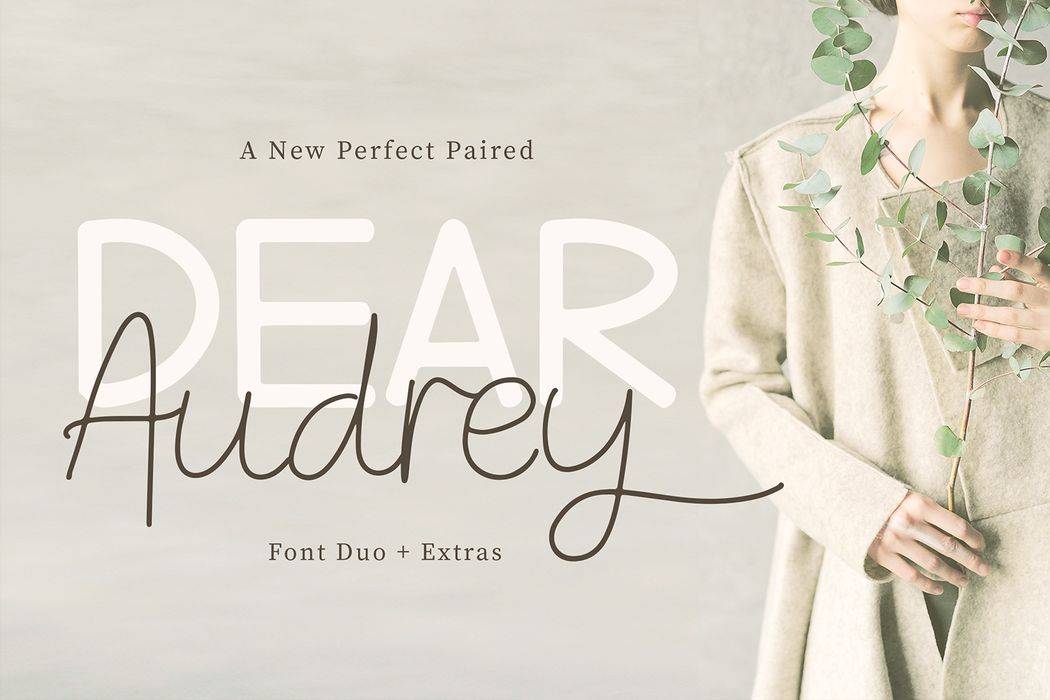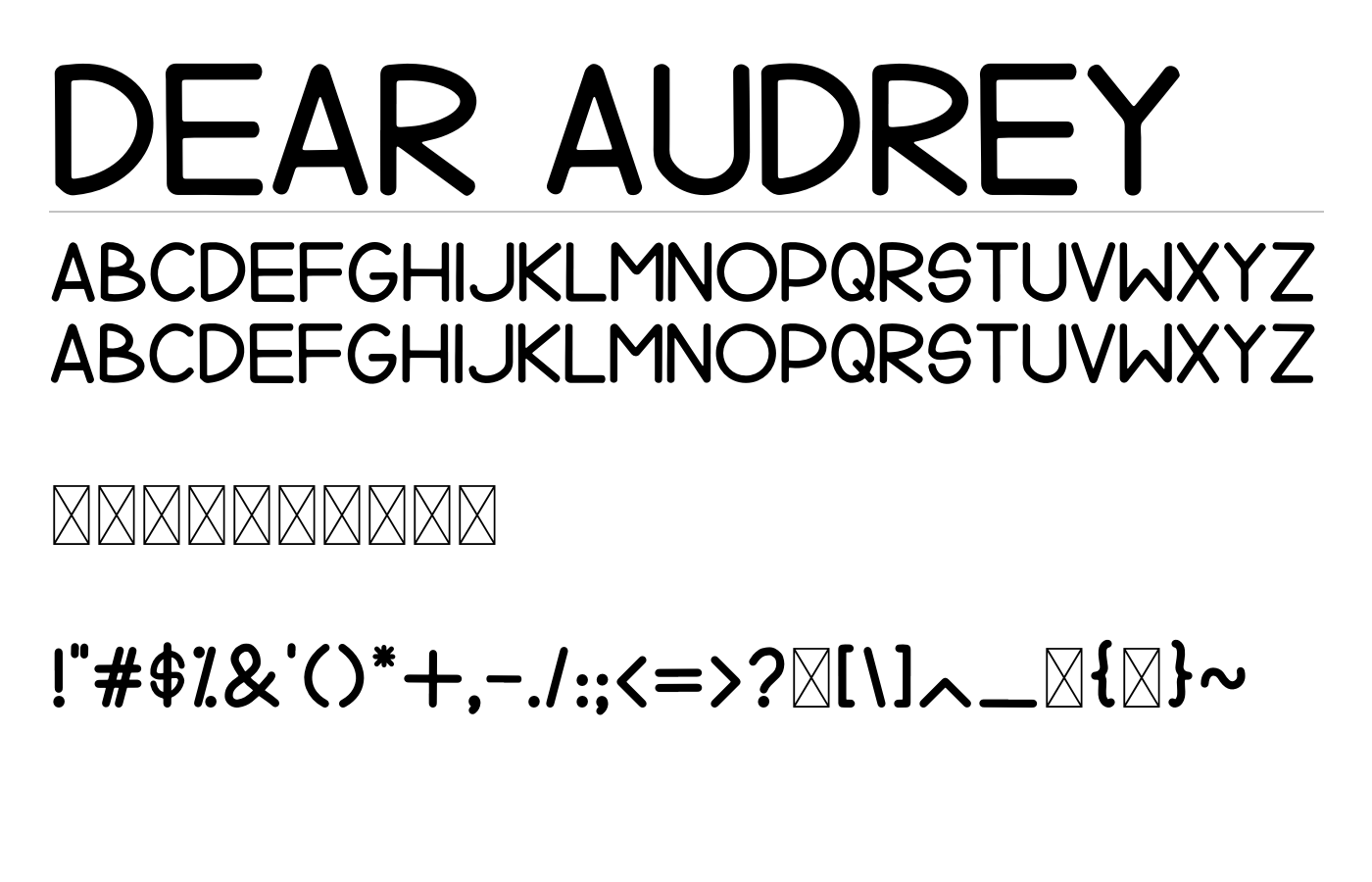
DearAudrey Font Duo is a playful and friendly sans serif typeface featuring a rounded, slightly condensed structure with consistent stroke weight and a casual, hand-drawn feel. Its clear, simple forms and soft curves make it ideal for informal branding, children’s materials, and creative projects that need an approachable, modern touch. This font works well in headlines and logos where warmth and personality are key.
DearAudrey Font Duo
About DearAudrey Font Duo
| Font family | DearAudrey Font Duo |
| Designer | Afandi & Syifa (Peterdraw) |